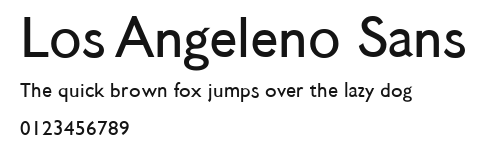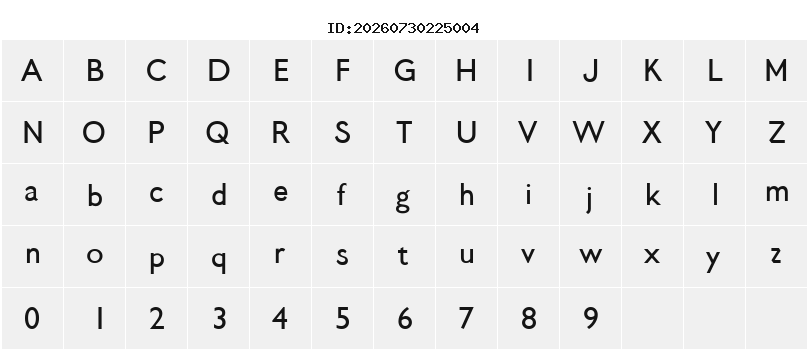
• Font Name: Los Angeleno Sans
• Full Font Name: Los Angeleno Sans
• Designer: Albert Samreth
• Manufacturer: Something International
About Los Angeleno Sans.ttf
Los Angeleno Sans.ttf is a modern, elegant sans-serif font designed for ultimate readability and visual harmony. Perfect for branding, headlines, web design, and print materials.